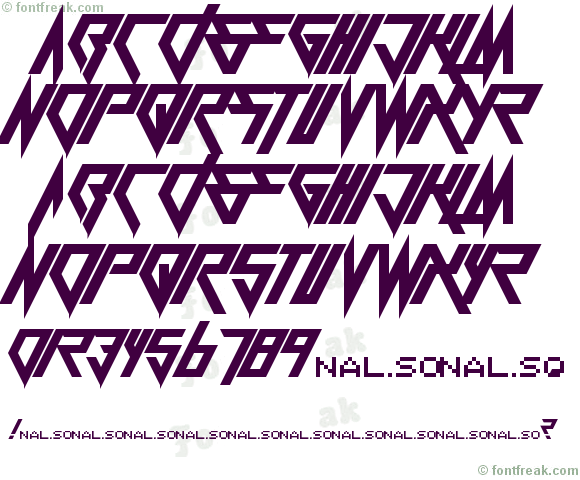
Berate The Elementary Regular
Berate The Elementary Regular, designed by Andrew McCluskey in 2012, is a striking display font that stands out for its unique geometric forms and bold visual presence. This font embodies a decorative style, characterized by sharp angles and a dynamic stroke weight that varies throughout its characters. The design features high contrast between thick and thin lines, lending it an energetic quality that captures attention. The spacing between letters is tight, enhancing its overall impact while maintaining readability.
This font is particularly suited for a variety of creative applications. Its bold and edgy aesthetic makes it an excellent choice for movie posters, where capturing the audience’s attention is paramount. Additionally, it can be used effectively in branding for modern businesses, especially those in the tech or gaming sectors. Restaurant menus looking to convey a contemporary vibe can also benefit from the font's unique character. Furthermore, the Berate The Elementary Regular font is perfect for promotional materials, where its distinctive look can help highlight key messages or products.
The target audience for this font includes graphic designers who seek to make bold statements in their projects, small business owners aiming to differentiate their brand, and content creators looking for a distinctive typeface to enhance their visual storytelling.
What sets Berate The Elementary Regular apart is its ability to blend artistic flair with functional design. It is a font that commands attention while remaining versatile enough for various uses. For those looking to add a touch of uniqueness to their projects, the Berate The Elementary Regular font free download offers an exciting opportunity to explore a fresh typographic style that can elevate any design.